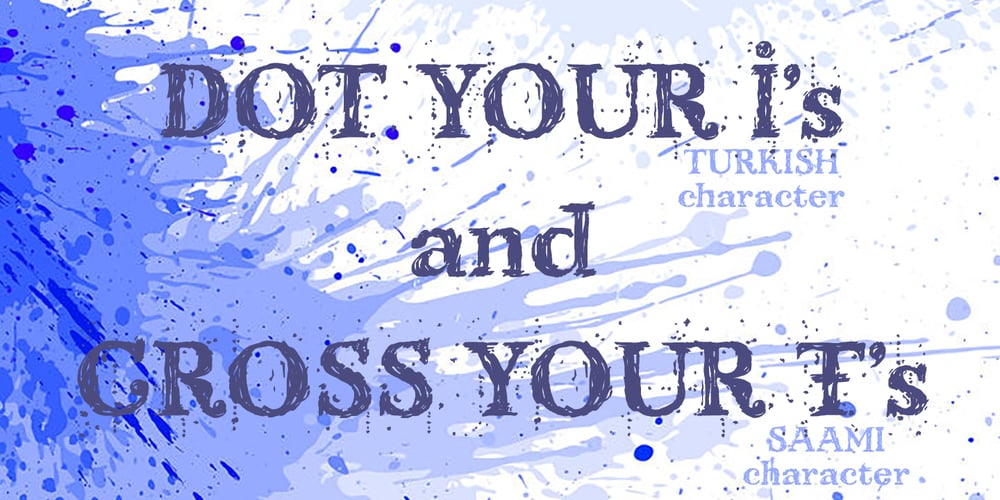
Kingthings Scrybbledot Pro Font Family was designed by Roger S. Nelsson, Kevin King and published by CheapProFonts. Kingthings Scrybbledot Pro contains 2 styles and family package options. A fun and charming scribbled alphabet – perfect for scrapbooking and that handmade look. Lots of technical details had to be fixed, but it now has a professional quality, and our impressive language support! 🙂 Kevin King says: “The Scrapbooking People have asked for grungy fonts – and this is one of my efforts to comply. I scribbled the letters in Paint shop Pro and imported the results into my font program directly. This is the first font i have created directly on the computer without any paper sketches – I think it took considerably more work!” Kingthings Scrybble Pro is a dotless version – perfect if you like the scribbles, but not the splutter. 😉 ALL fonts from CheapProFonts have very extensive language support: They contain some unusual diacritic letters (some of which are contained in the Latin Extended-B Unicode block) supporting: Cornish, Filipino (Tagalog), Guarani, Luxembourgian, Malagasy, Romanian, Ulithian and Welsh. They also contain all glyphs in the Latin Extended-A Unicode block (which among others cover the Central European and Baltic areas) supporting: Afrikaans, Belarusian (Lacinka), Bosnian, Catalan, Chichewa, Croatian, Czech, Dutch, Esperanto, Greenlandic, Hungarian, Kashubian, Kurdish (Kurmanji), Latvian, Lithuanian, Maltese, Maori, Polish, Saami (Inari), Saami (North), Serbian (latin), Slovak(ian), Slovene, Sorbian (Lower), Sorbian (Upper), Turkish and Turkmen. And they of course contain all the usual “western” glyphs supporting: Albanian, Basque, Breton, Chamorro, Danish, Estonian, Faroese, Finnish, French, Frisian, Galican, German, Icelandic, Indonesian, Irish (Gaelic), Italian, Northern Sotho, Norwegian, Occitan, Portuguese, Rhaeto-Romance, Sami (Lule), Sami (South), Scots (Gaelic), Spanish, Swedish, Tswana, Walloon and Yapese.